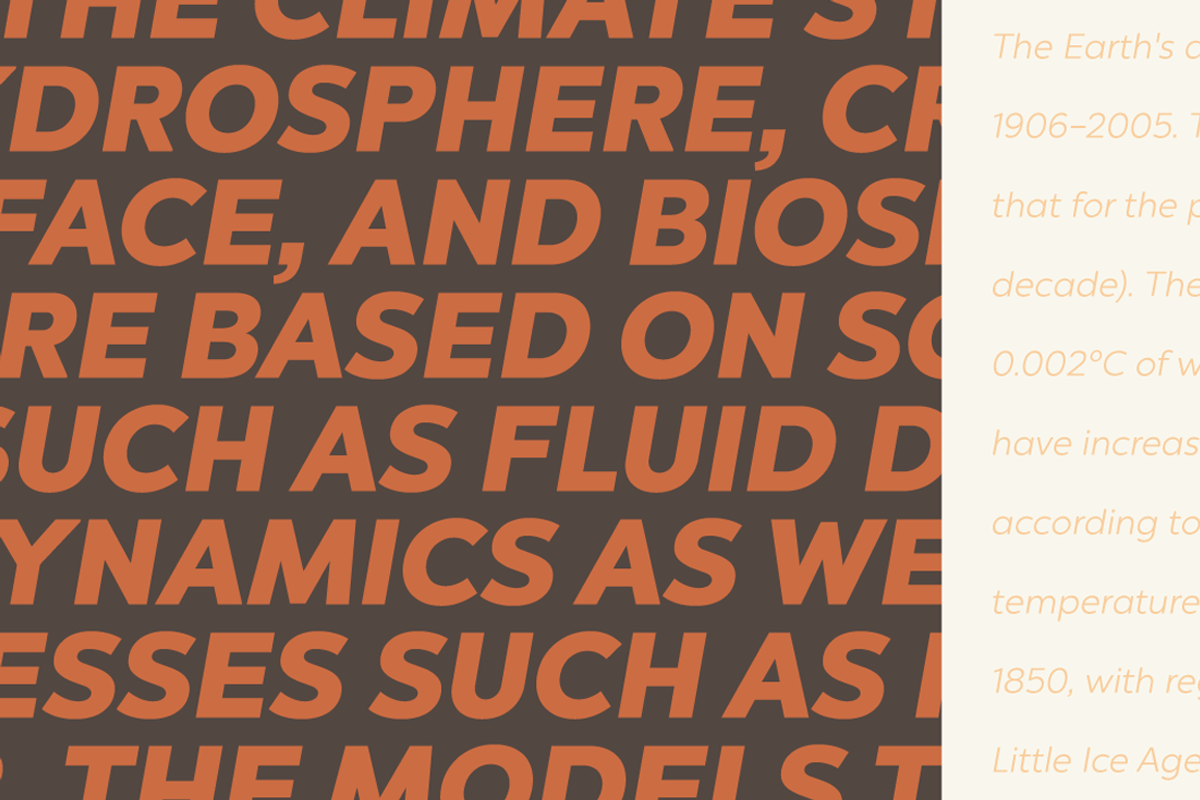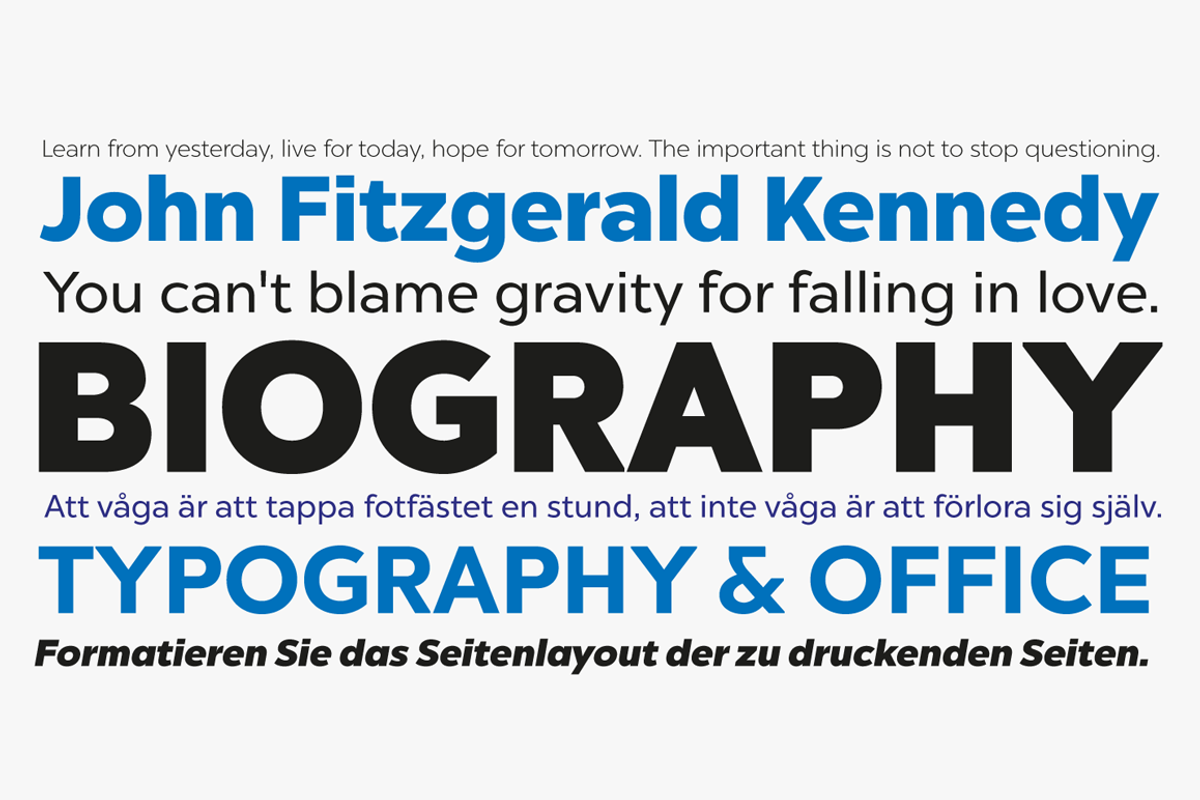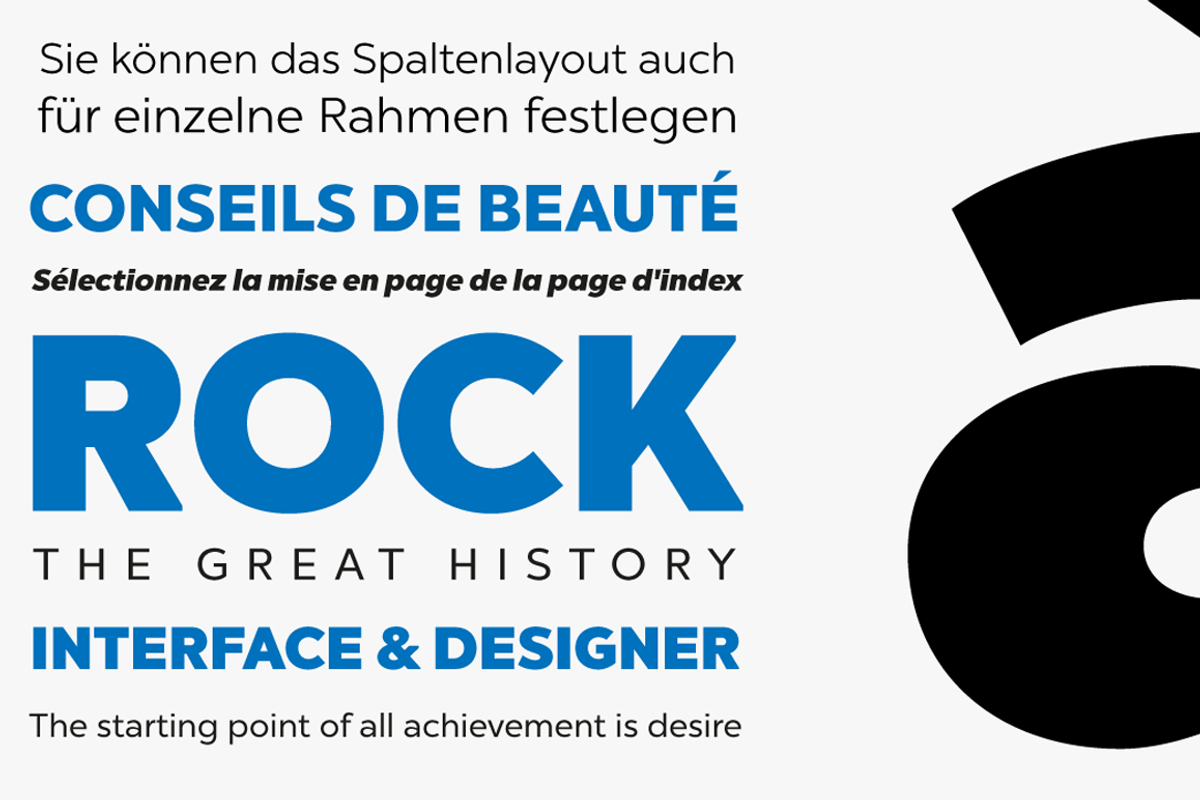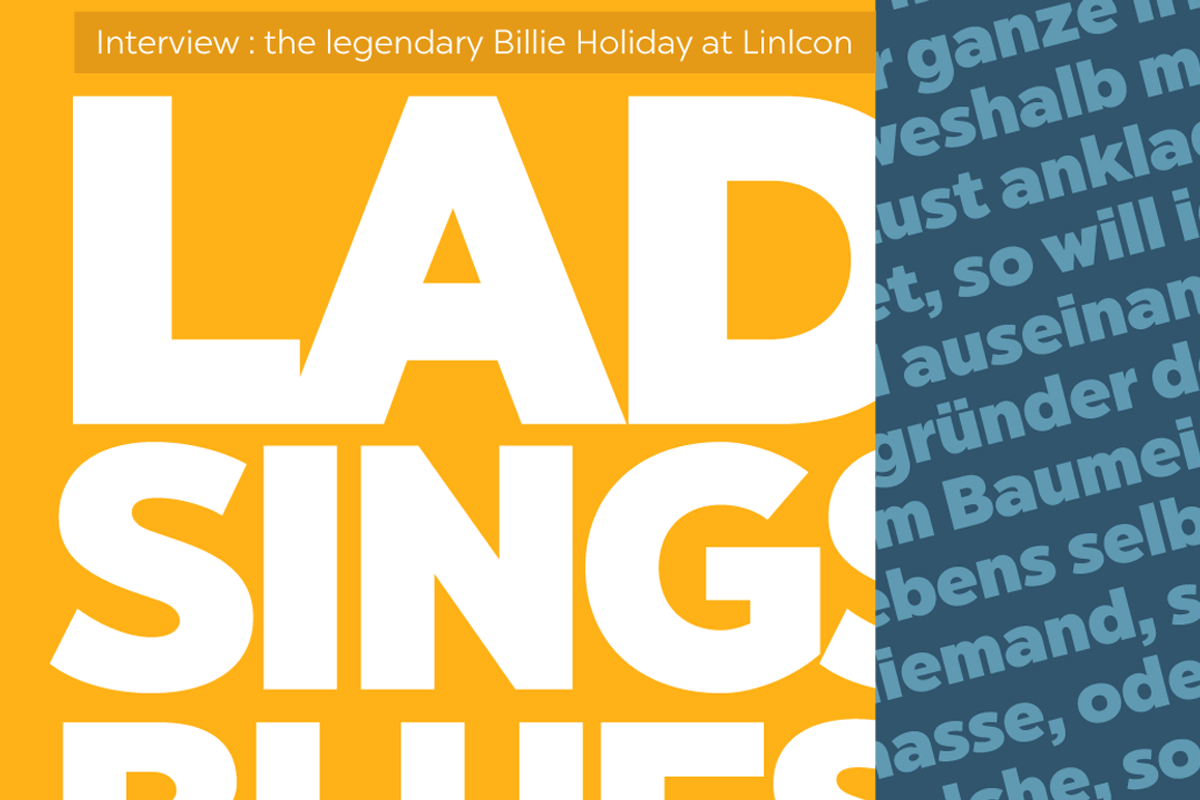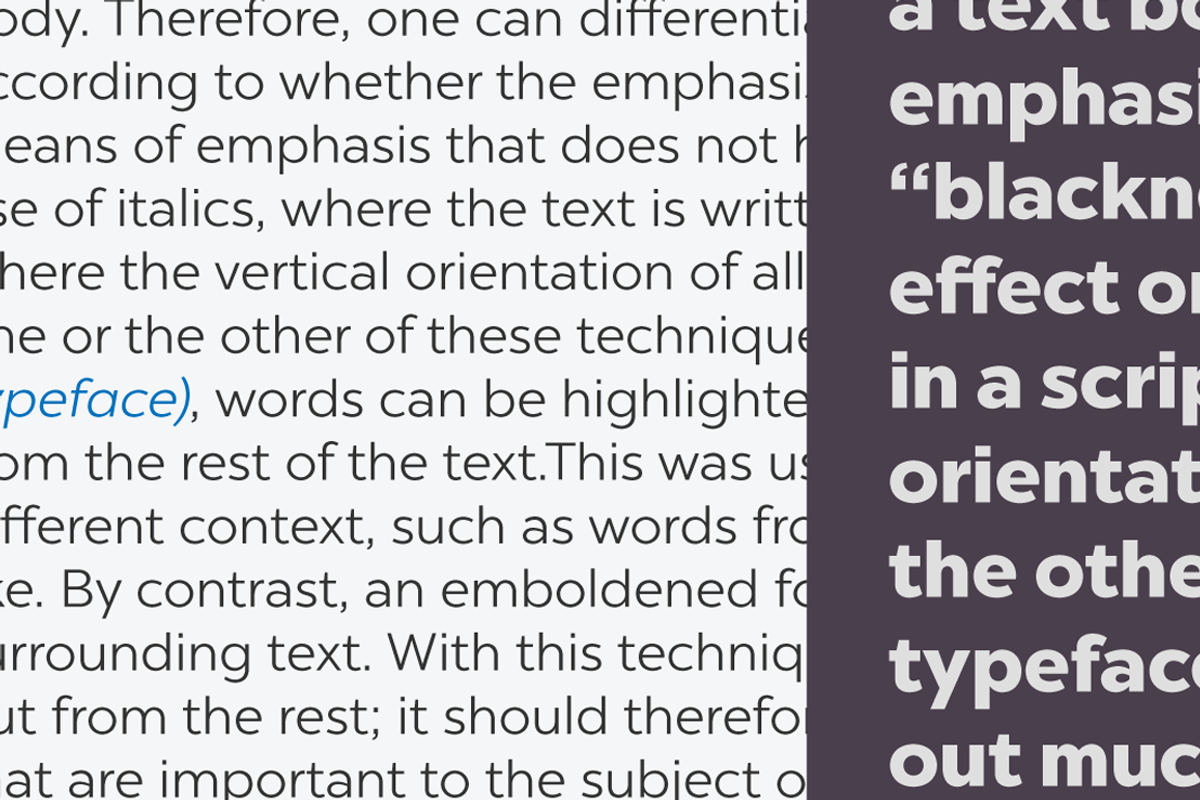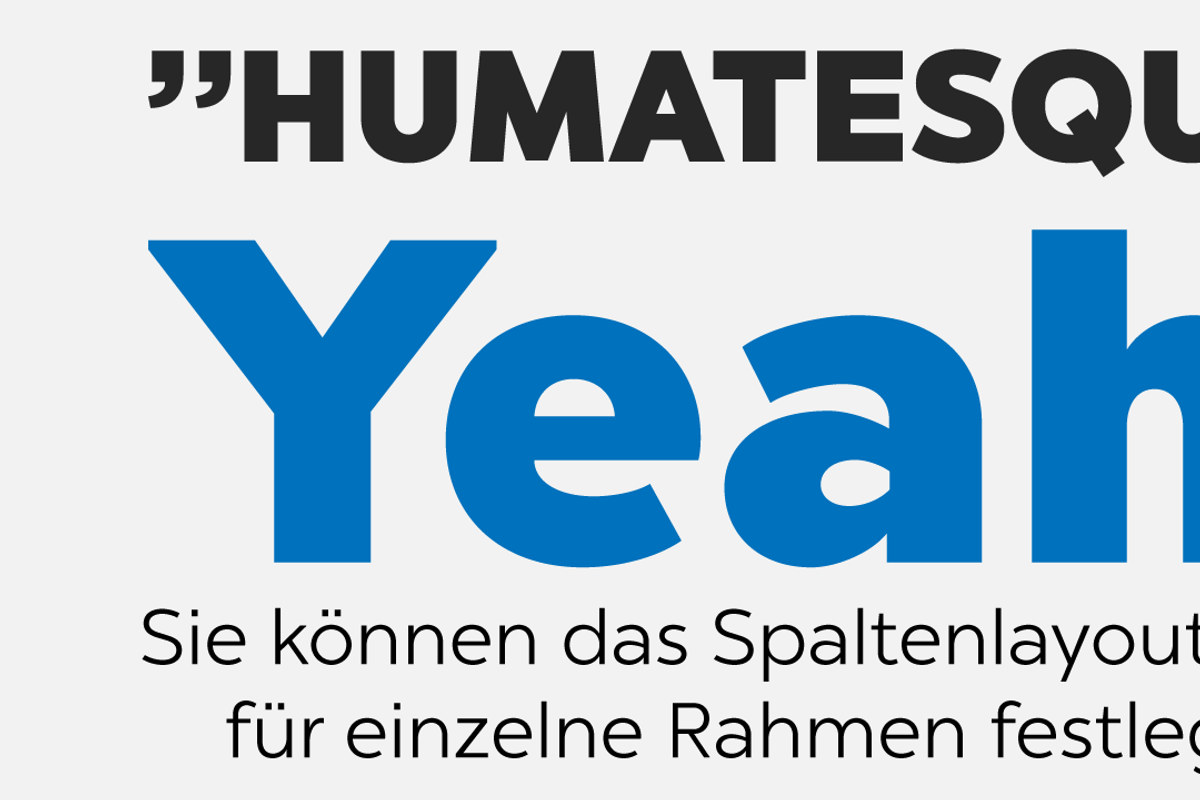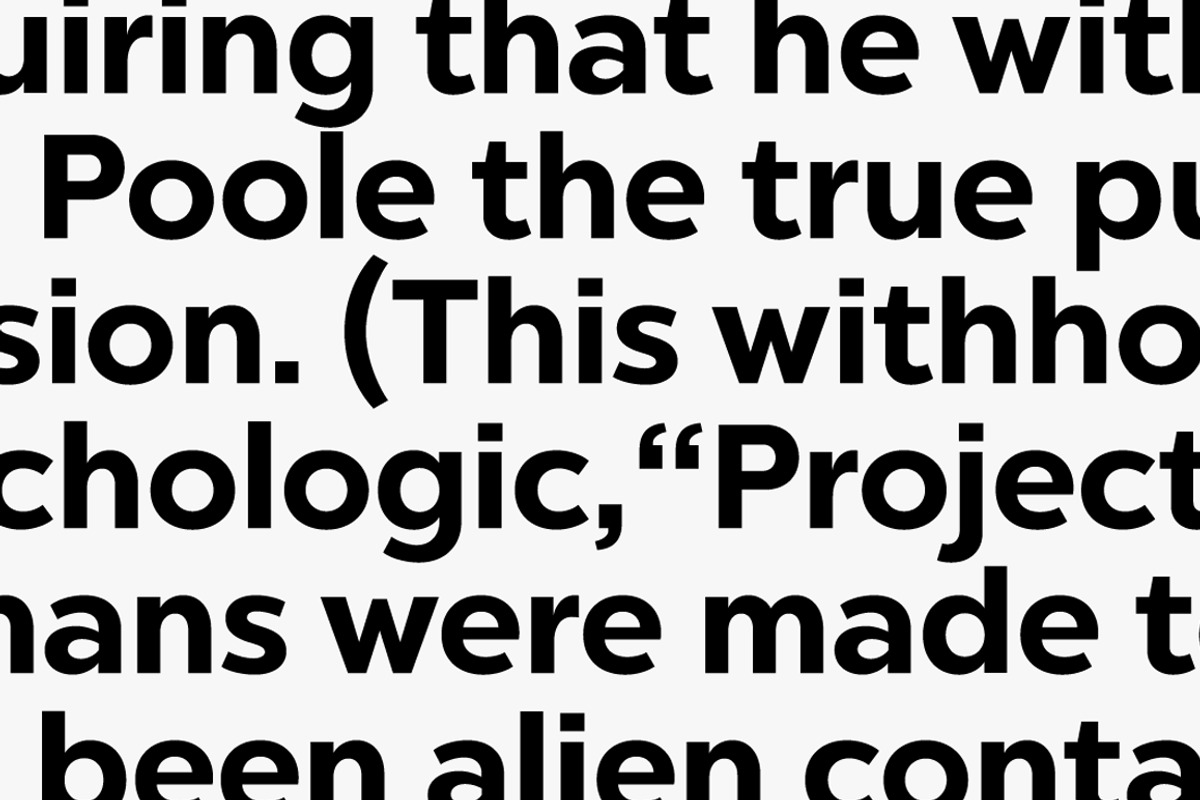
Chronica Pro Family (18 fonts)
Chronica Pro Family (18 fonts) by Mostardesign Type Foundry is a font selected for branding, posters, packaging, typography.
Why Chronica Pro Family (18 fonts) is worth a look
Chronica Pro Family (18 fonts) by Mostardesign Type Foundry fits naturally into Branding, posters, packaging, typography.